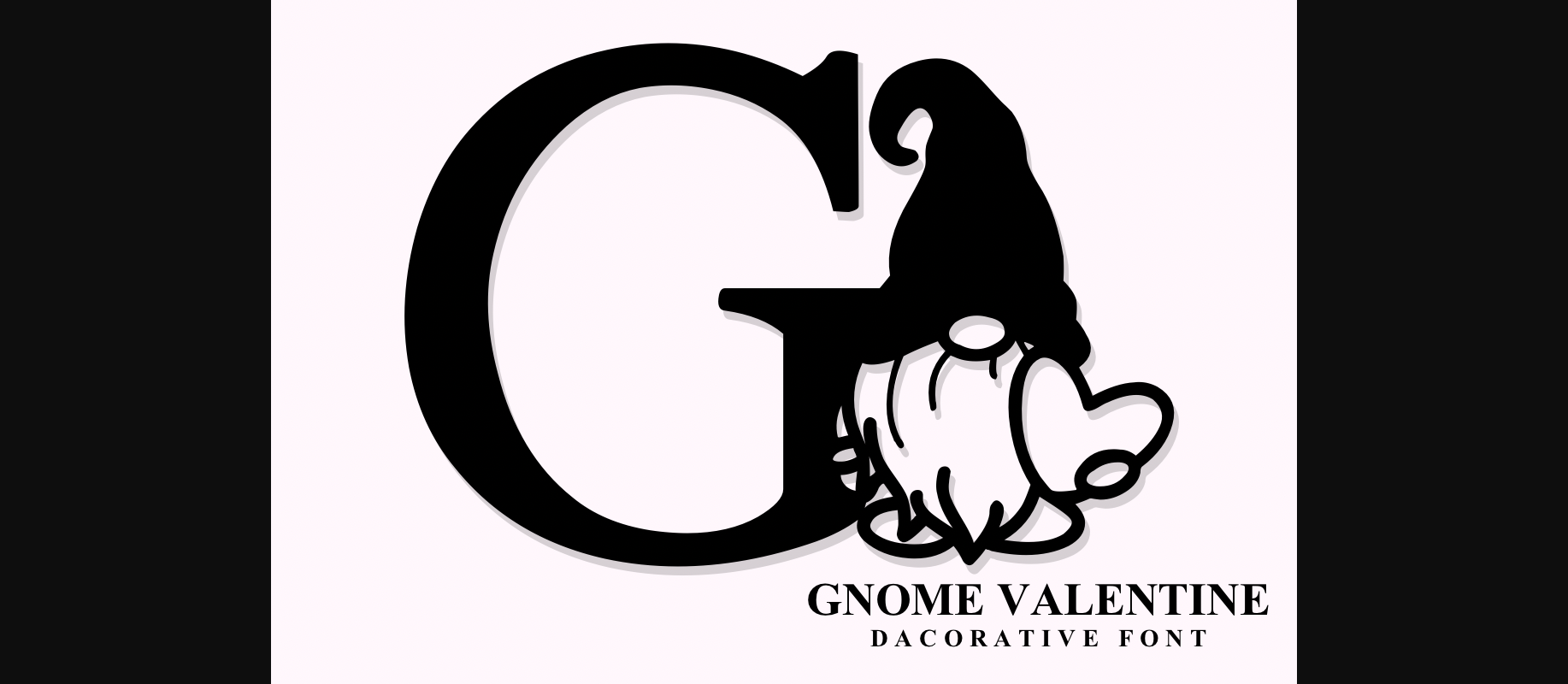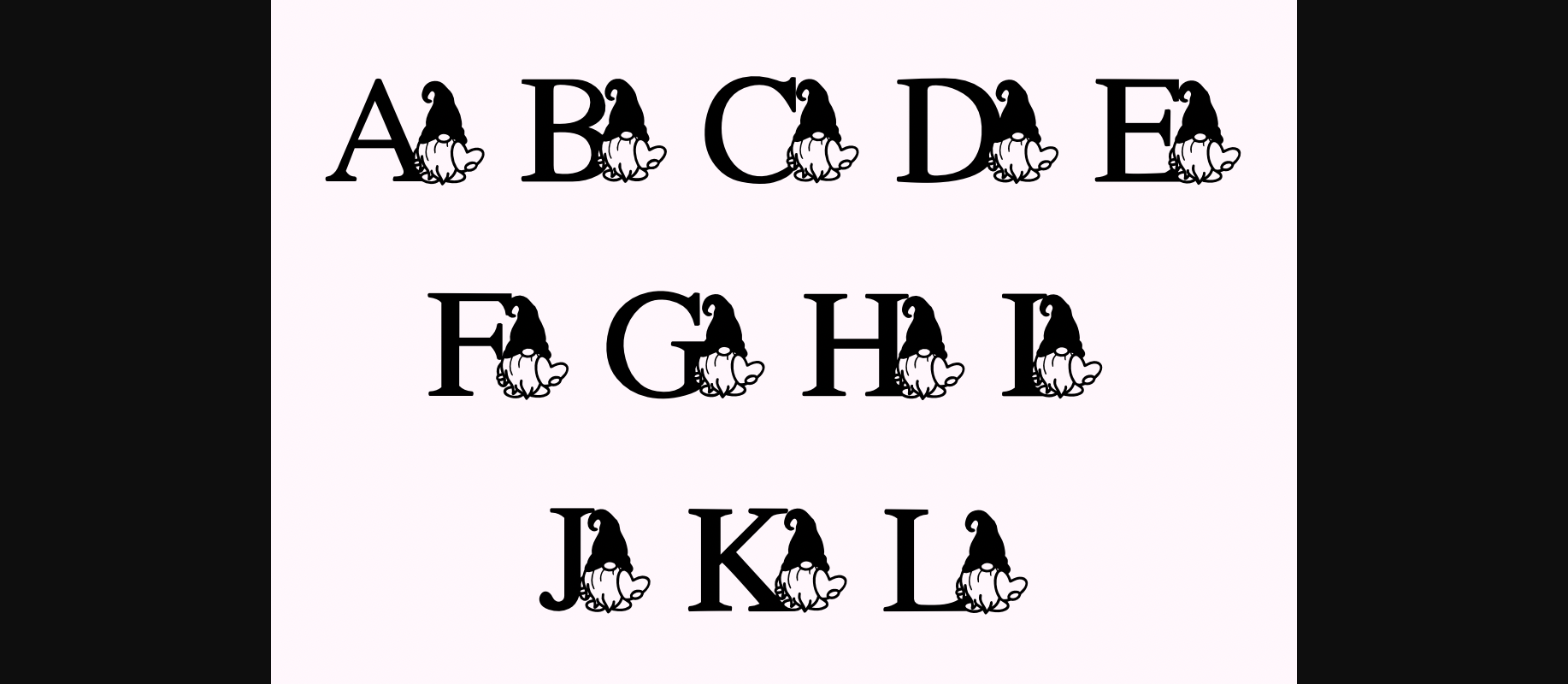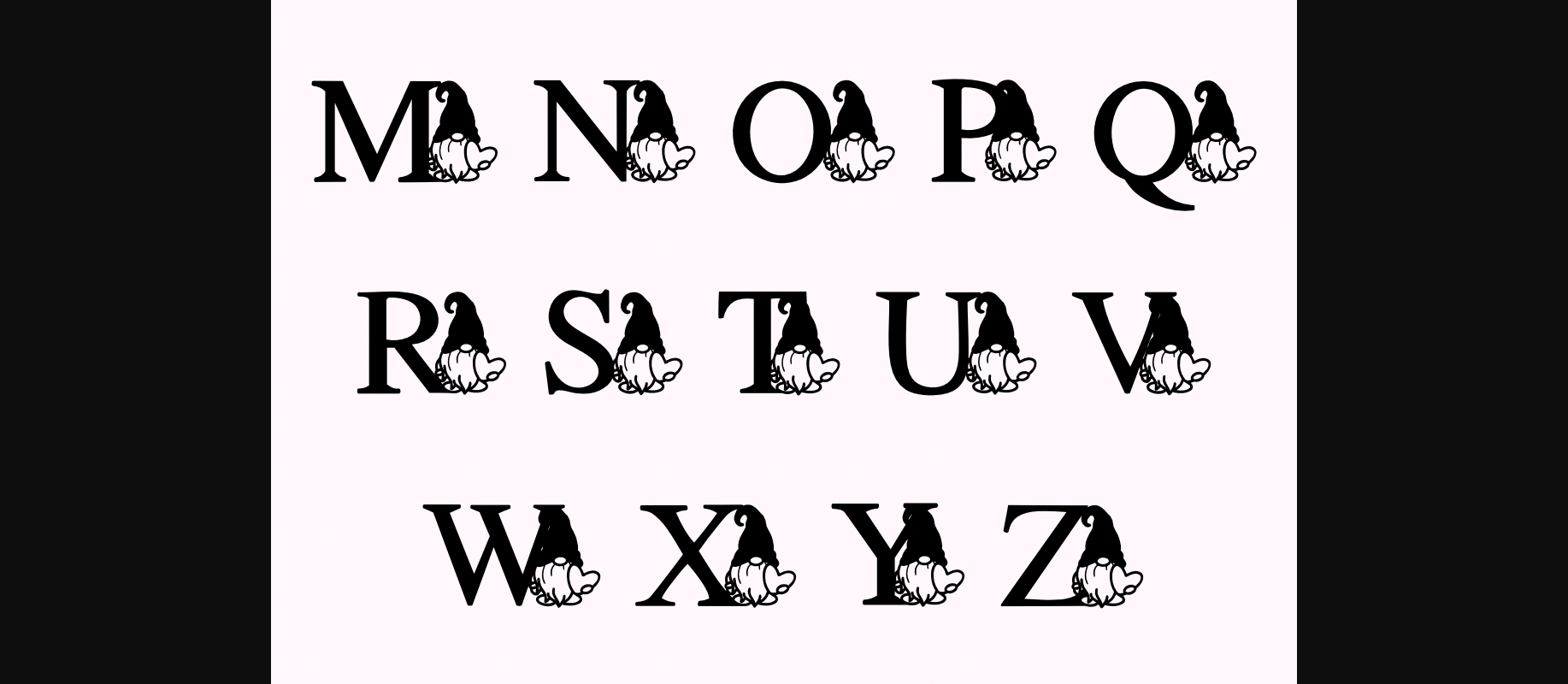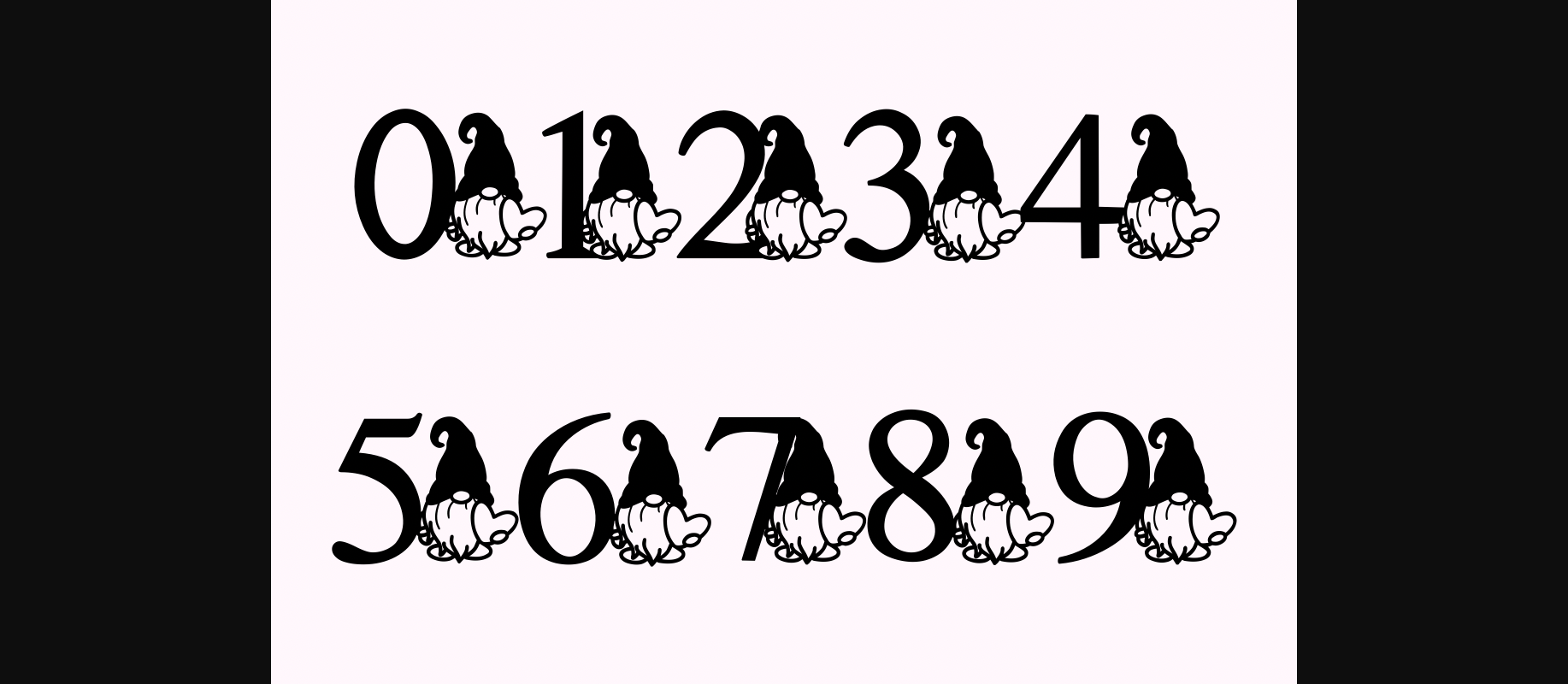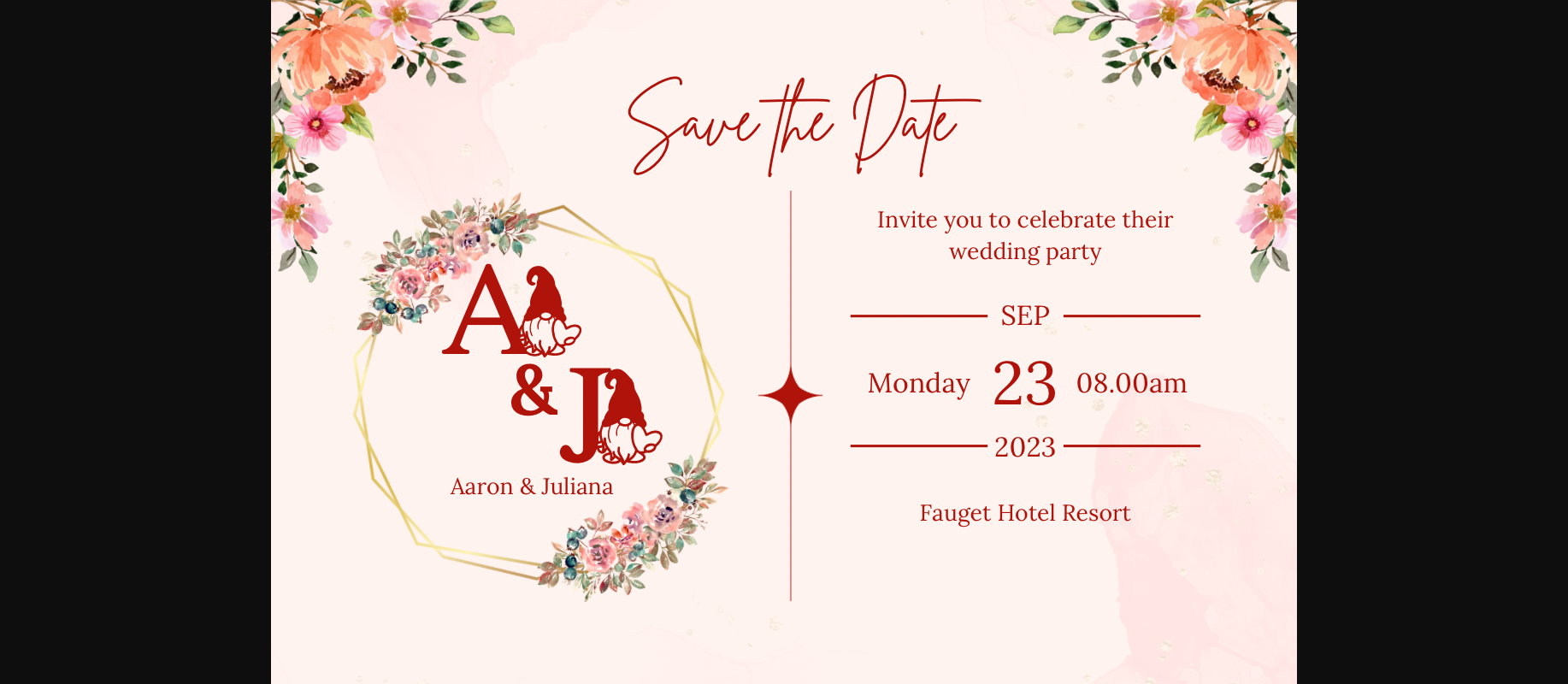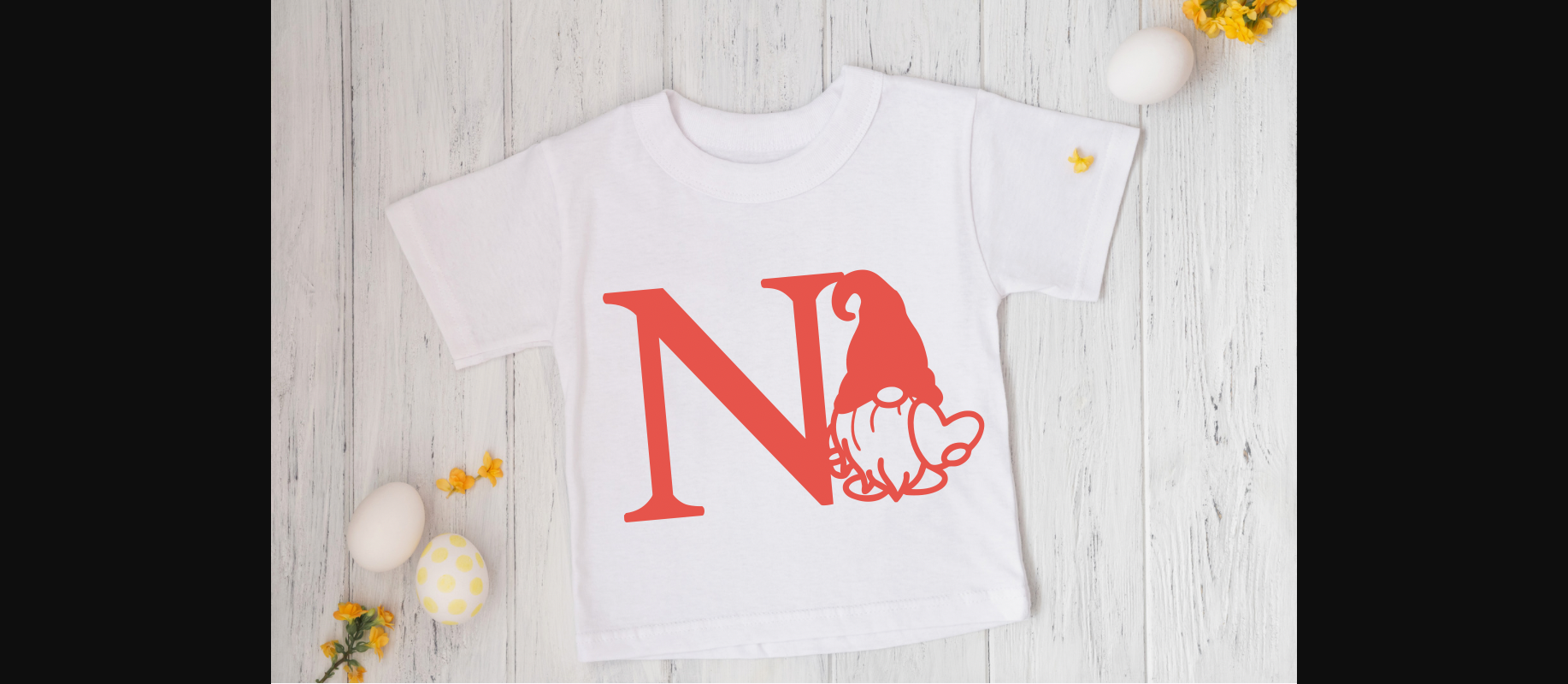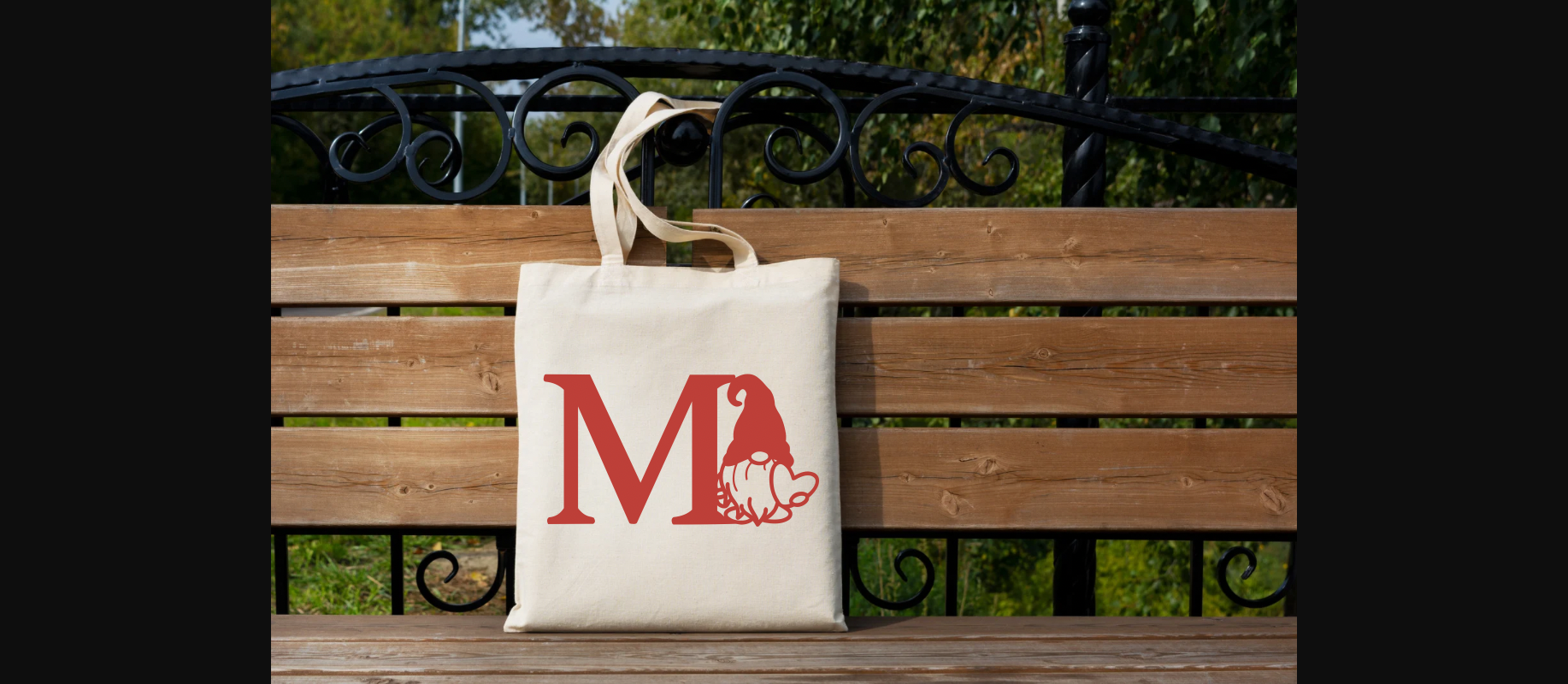
Gnome Valentine Font
About Gnome Valentine Font
Gnome Valentine is a fun and playful decorative font perfect for adding a touch of whimsy to your projects. Its quirky charm makes it great for Valentine’s Day cards, invitations, or any design that needs a dash of creativity. With its unique style, Gnome Valentine adds personality and flair to your text effortlessly.